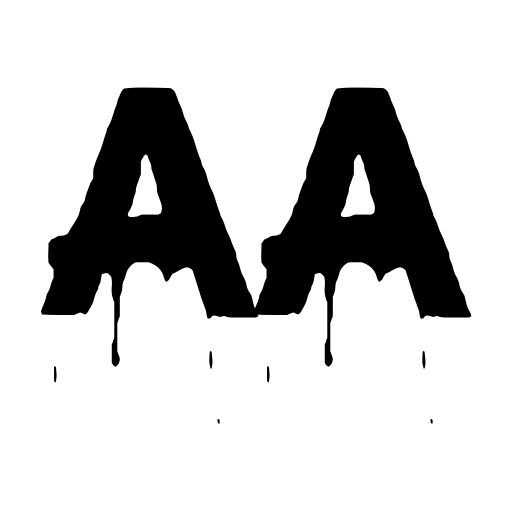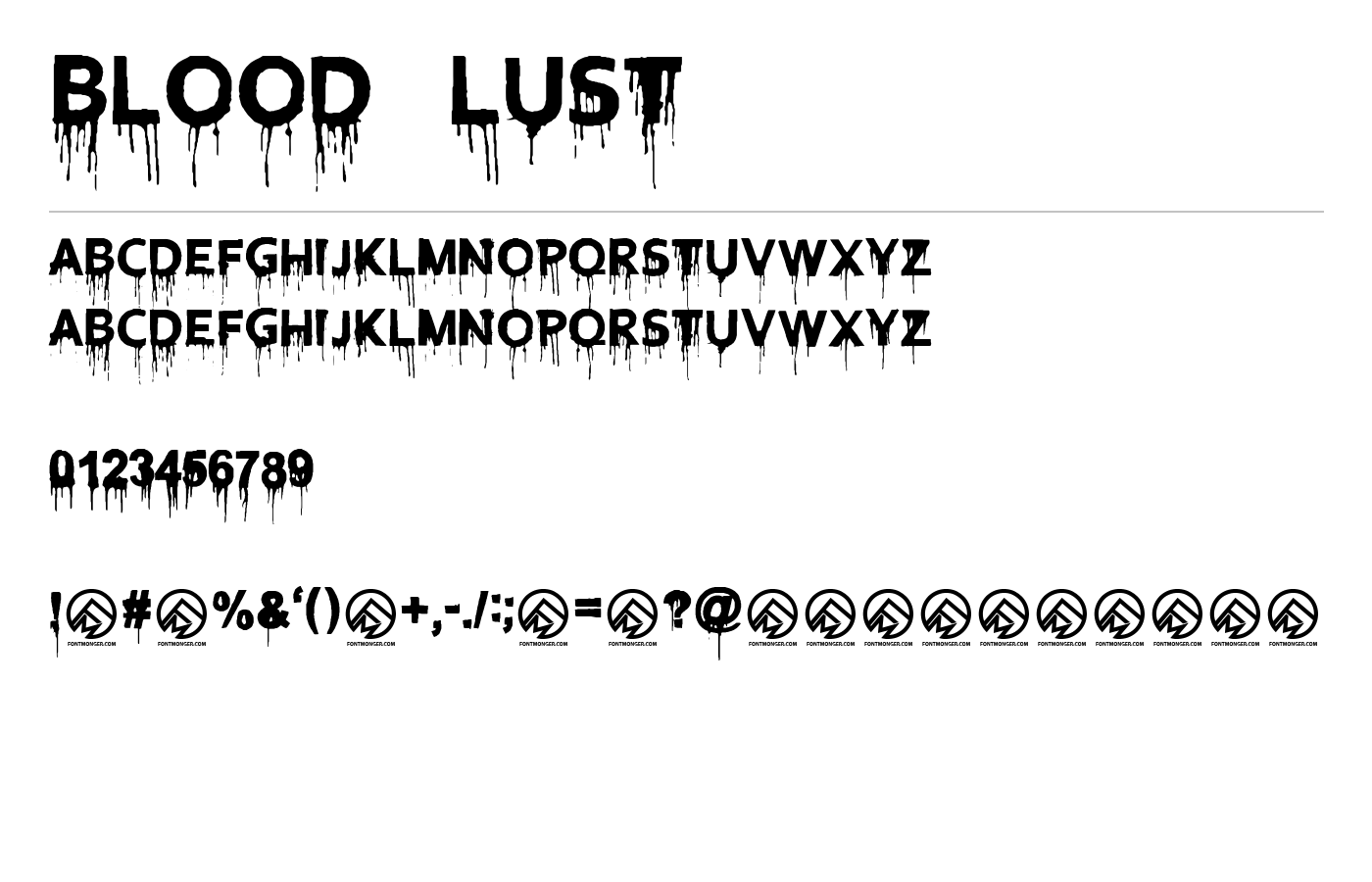
Blood Lust is a bold, sans serif display font with a striking horror-themed design characterized by dripping, uneven edges that resemble blood or paint. Its heavy weight and condensed width create a strong, impactful presence, making it perfect for Halloween, horror movie posters, or edgy branding that demands attention with a dark, dramatic mood. This font works best in headlines and logos where its unique spooky style can shine.
Blood Lust Font
About Blood Lust Font
| Font family | Blood Lust Font |
| Designer | Chris Vile |